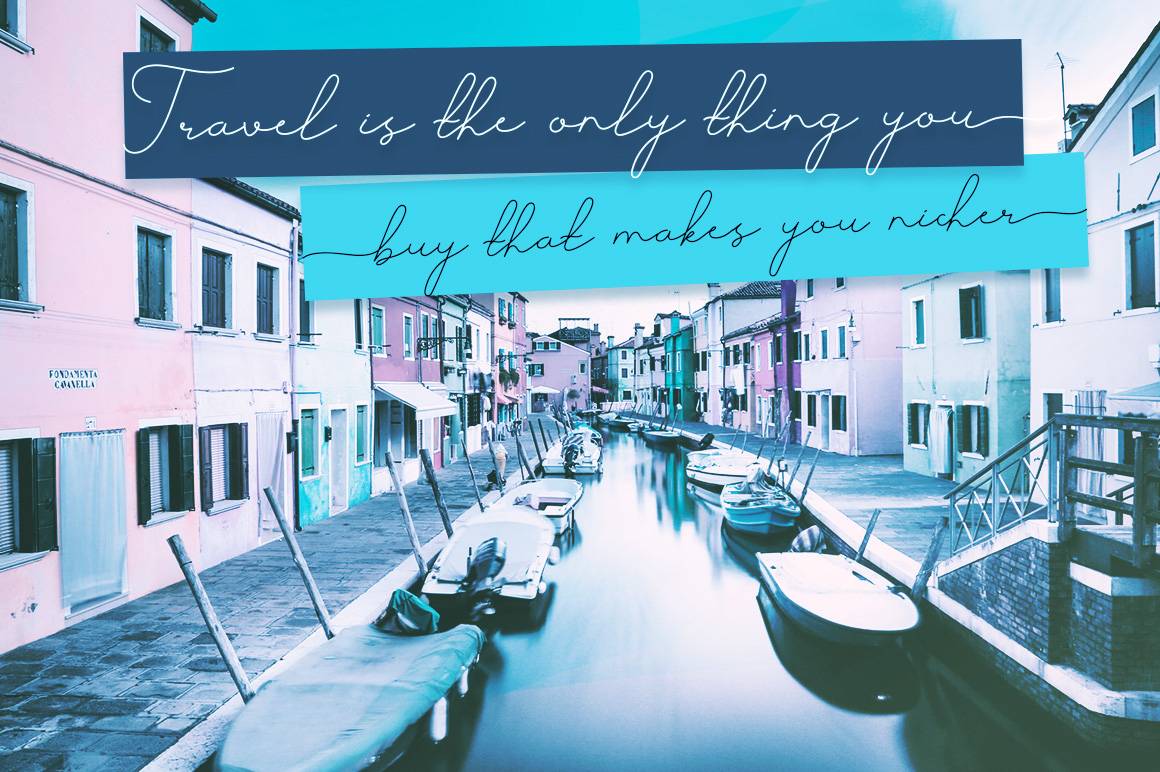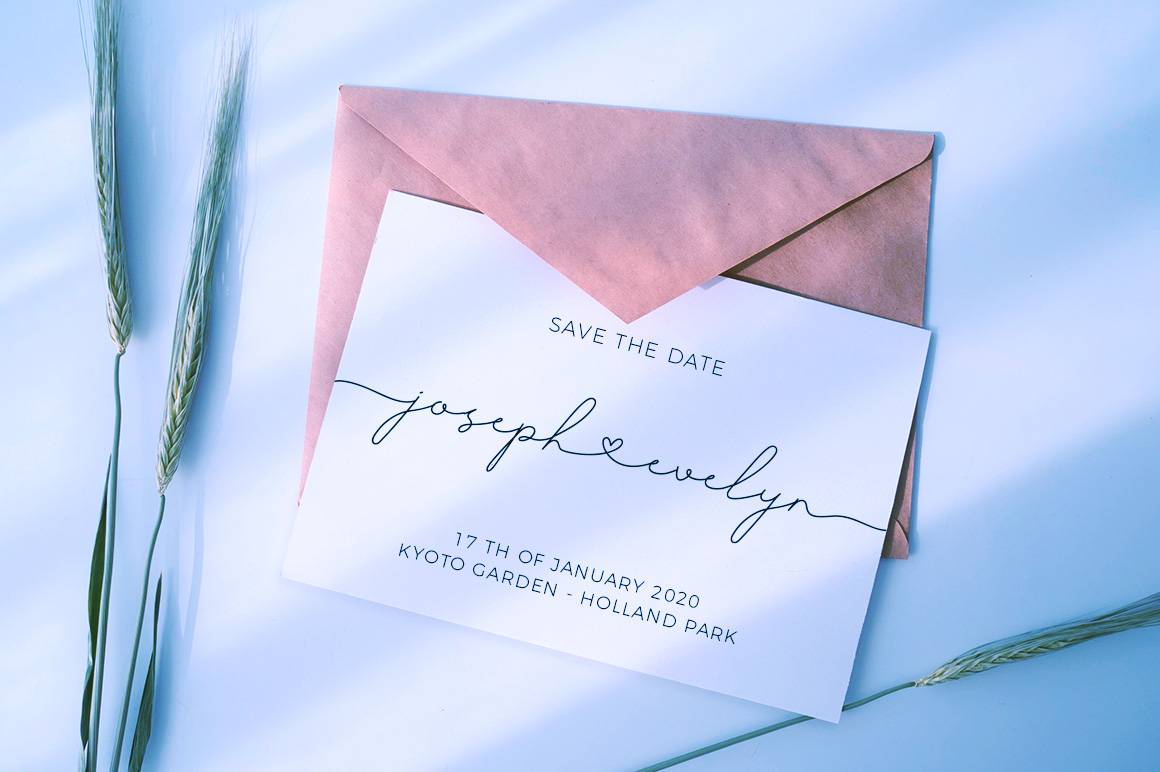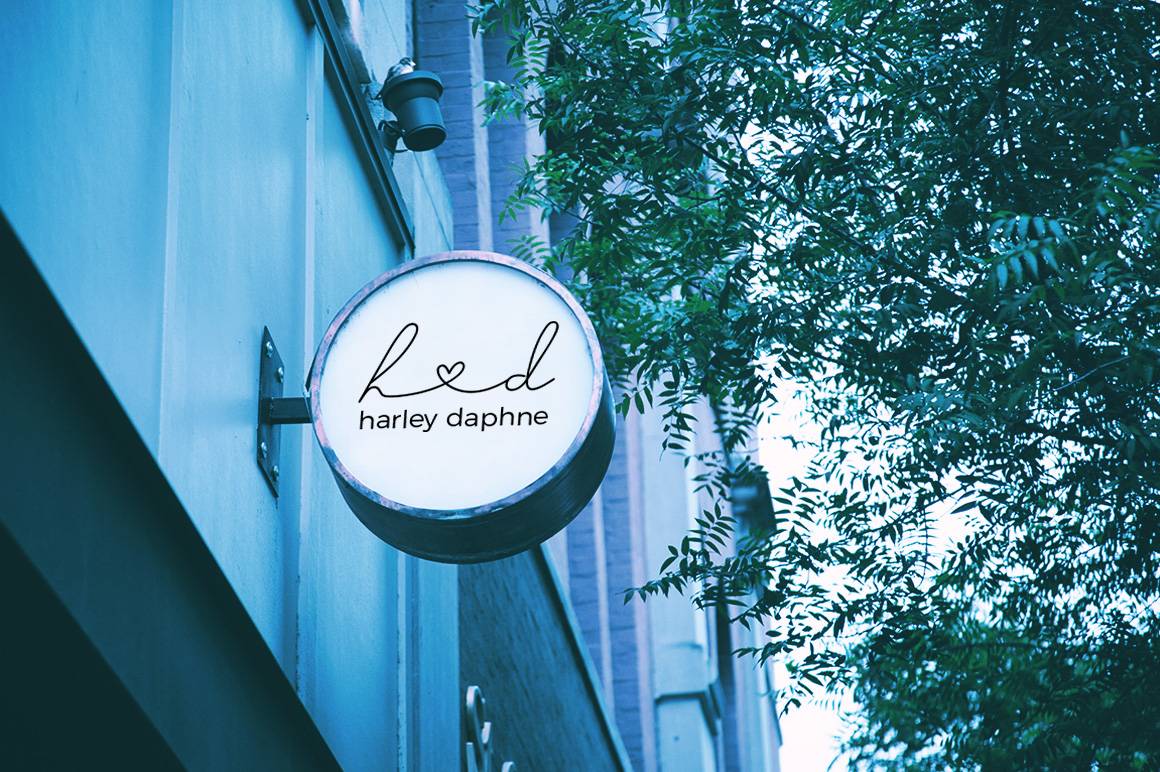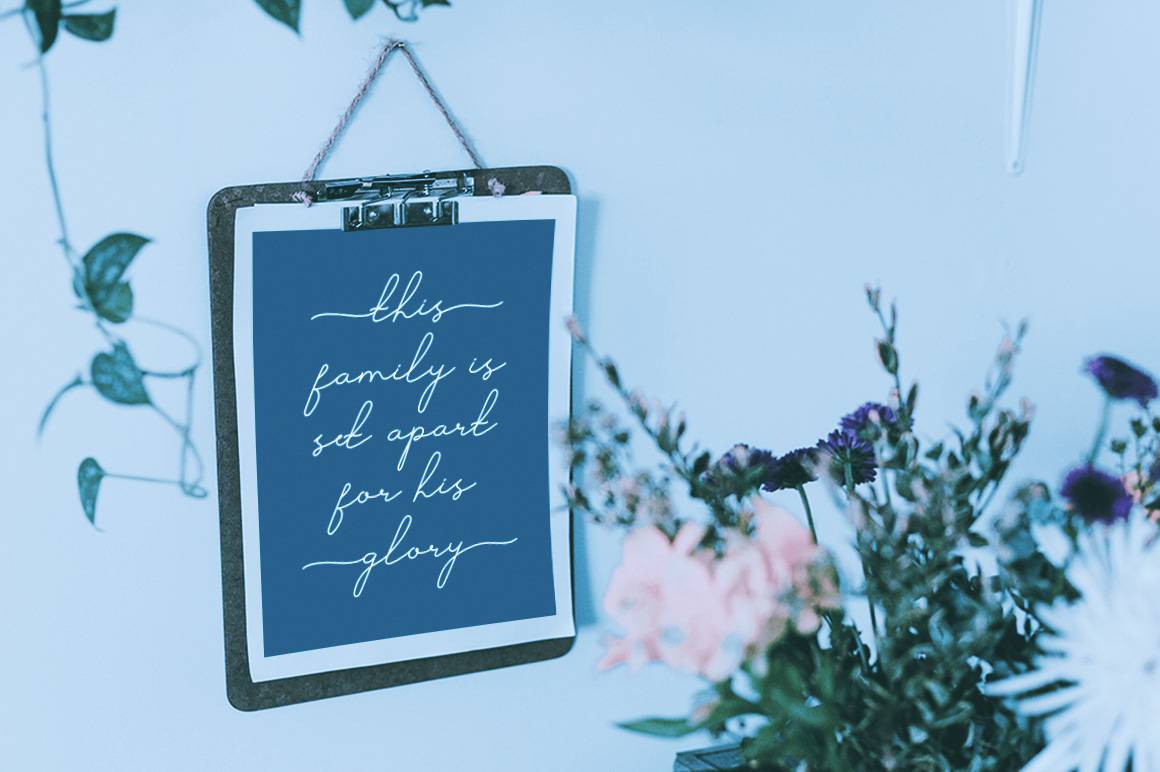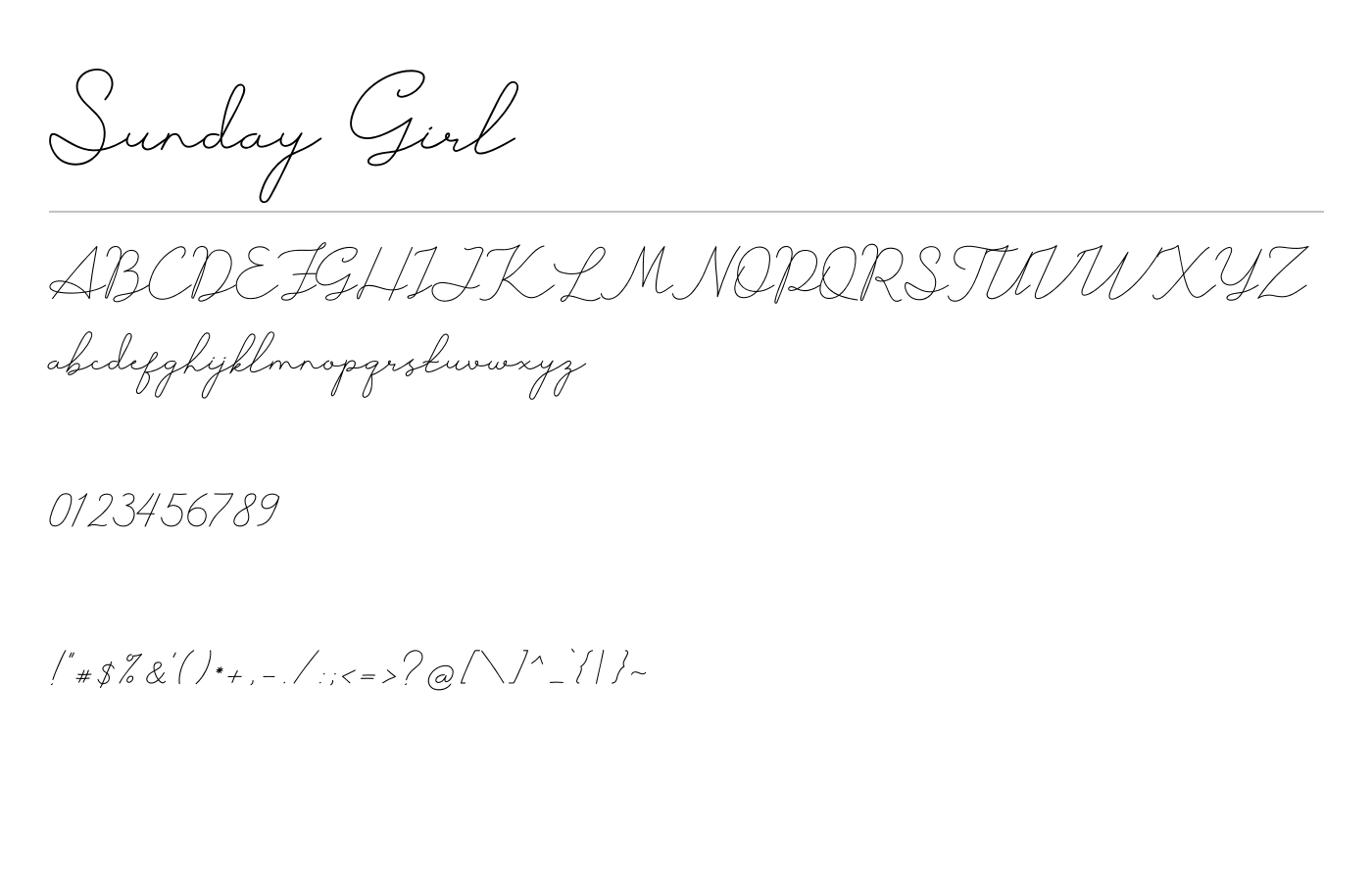
Sunday Girl Script is a delicate, elegant handwritten font with thin, flowing strokes that give it a light and airy feel. Its cursive letterforms blend smooth connectivity with a graceful, casual sophistication, making it perfect for feminine branding, invitations, and stylish editorial designs. This font works beautifully where a touch of subtle charm and personal warmth is desired.
Sunday Girl Script Font
About Sunday Girl Script Font
| Font family | Sunday Girl Script Font |
| Release date | 2020-06-12 |
| Designer | Hamzah Muhamad Ihsan |